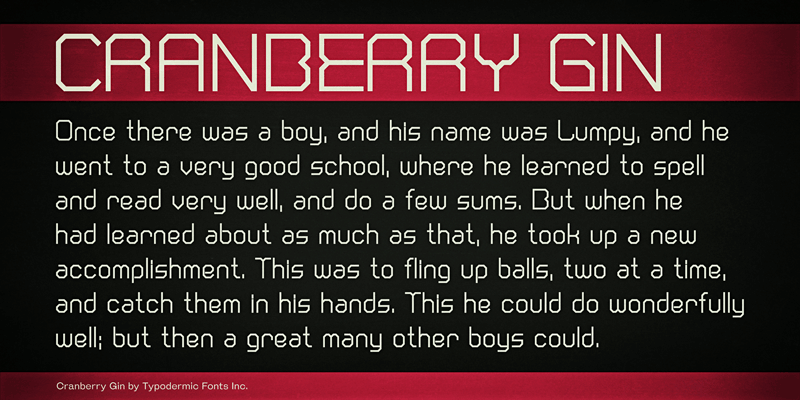
Cranberry Gin is an octagonal, technical sans. This font includes a license that allows free commercial use: sometimes referred to as a desktop license. This allows you to install the font on a computer and use it to create posters, web graphics, game graphics, t-shirts, videos, signs, logos and more. Read the license agreement for details. If you'd like to embed this font in an app, ebook, on the web or anything that's not covered by the desktop license agreement, visit the link below. You'll find distributors who offer different types of licenses or you can contact me for help. http://typodermicfonts.com/cranberry-gin/ |